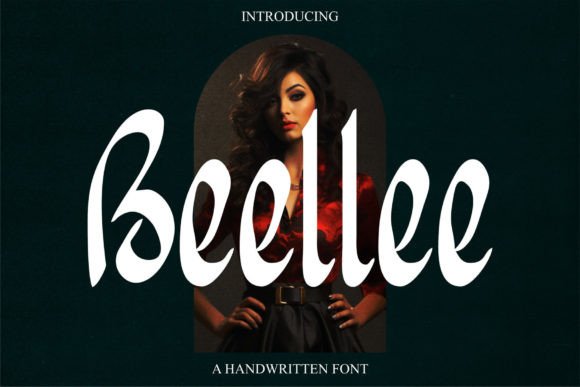
Introducing Beellee, the ultimate script font that will bring your designs to life! Created by AP, Beellee is the perfect choice for anyone looking for the best font for monogram Cricut. Its impeccable handwritten style adds a personal touch to any project, making it more engaging and captivating.
With its flowing strokes and natural feel, Beellee exudes warmth and charm, creating a genuine connection with your audience. Whether you're designing wedding invitations, greeting cards, or even social media graphics, Beellee is the key to making your work stand out from the crowd.
What sets Beellee apart from other fonts is its incredible versatility. It effortlessly adapts to any style, seamlessly transitioning from casual and friendly to elegant and timeless. From heartfelt messages to sophisticated branding, Beellee brings an authentic and artistic touch to your typography.
Imagine the impact of handwritten text that speaks from the heart. Beellee allows you to embrace the beauty of personal writing, elevating your designs to new heights. Its captivating and emotional essence will resonate with your audience, leaving a lasting impression.
Not only does Beellee enhance the visual appeal of your designs, but it also ensures that your message is conveyed with utmost clarity. Its legibility and readability make it a top choice for any project that requires clear and impactful communication.